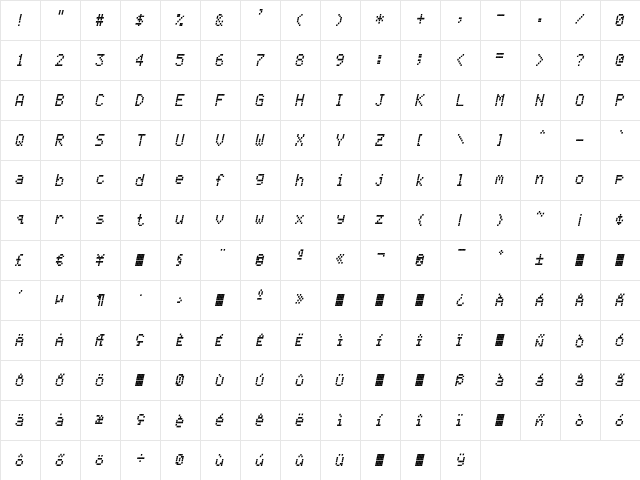
CallFourS-Italic Regular
Design Context for CallFourS-Italic Typeface
CallFourS-Italic takes a measured approach to typography — its balanced proportions and neutral character make it a reliable workhorse for both digital and print work. Its italic angle brings a sense of urgency and motion to the letterforms.
Pro Tip: Try CallFourS-Italic for annotation and caption copy alongside an upright companion — the contrast in angle creates a dynamic but ordered typographic system.